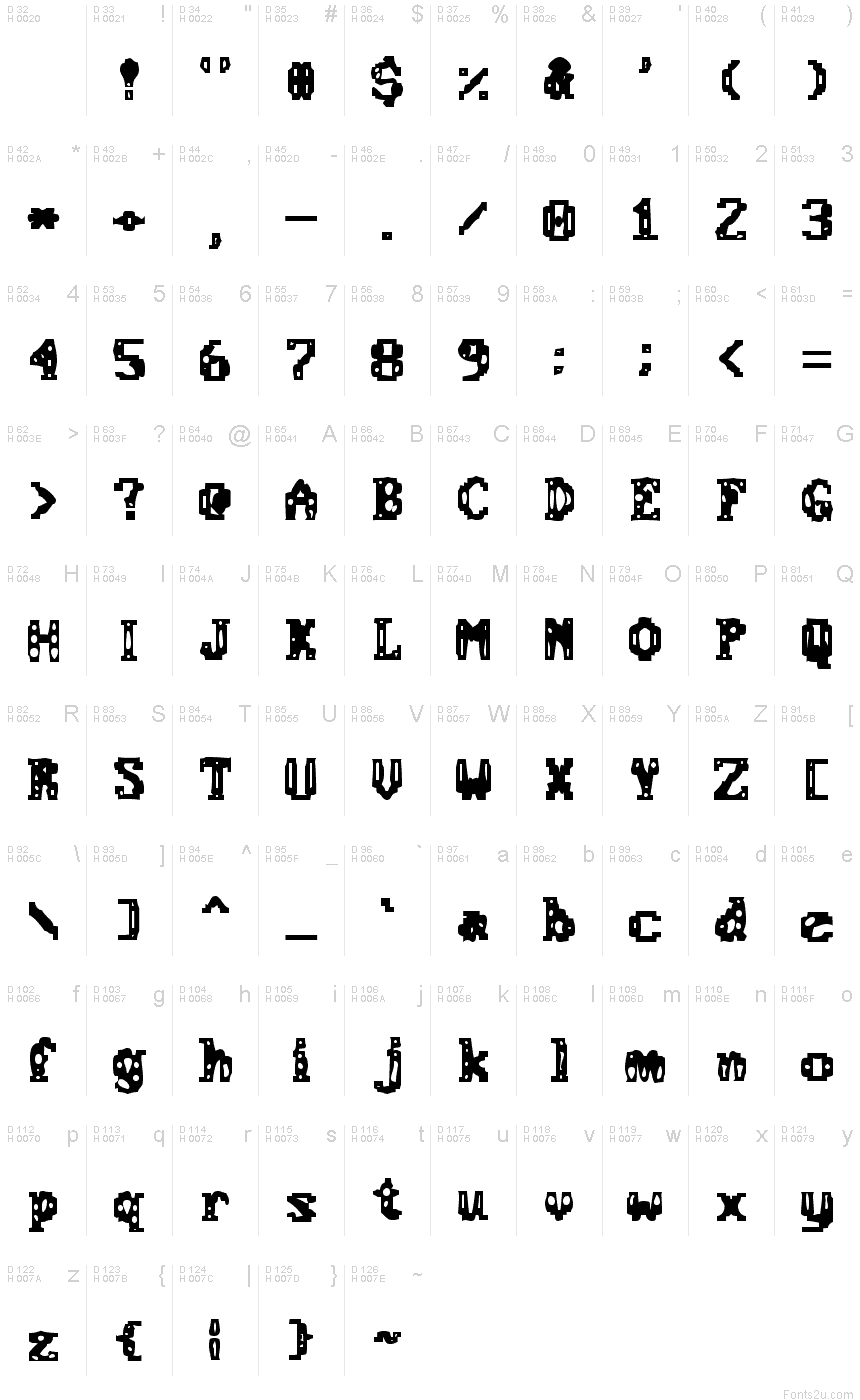
Chemical Gus
Chemical Gus font is a free distorted display typeface that looks like it’s been splashed with acid and left to bubble. Thick black shapes sag and drip into strange silhouettes, punctured by porthole-like holes that feel half‑toxic, half‑cartoon. The letters don’t line up politely—they lurch and wobble in a way that instantly shouts chaos, slime, and mad‑science energy.
Using Chemical Gus, headlines feel like they’ve crawled out of a lab accident or a cult horror VHS cover. This free font shines on Halloween posters, slime‑themed party invites, underground music flyers, spooky game titles, zines, and science-lab graphics. For legibility, keep it big and bold, then pair it with a plain geometric sans in small text to let Chemical Gus handle the weirdness.